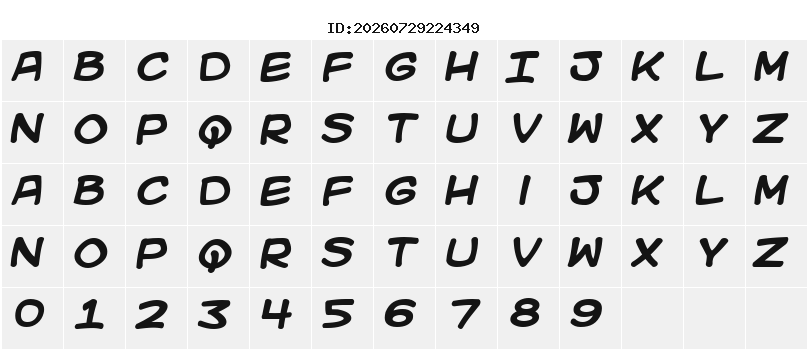
Kid Kosmic Preview
• Font Name: Kid Kosmic
• Font ID: Silver Age
• Full Font Name: Kid Kosmic Bold
• PostScript Name: KidKosmicBold
About Kid Kosmic.ttf
Kid Kosmic.ttf is a modern, elegant sans-serif font designed for ultimate readability and visual harmony. Perfect for branding, headlines, web design, and print materials.